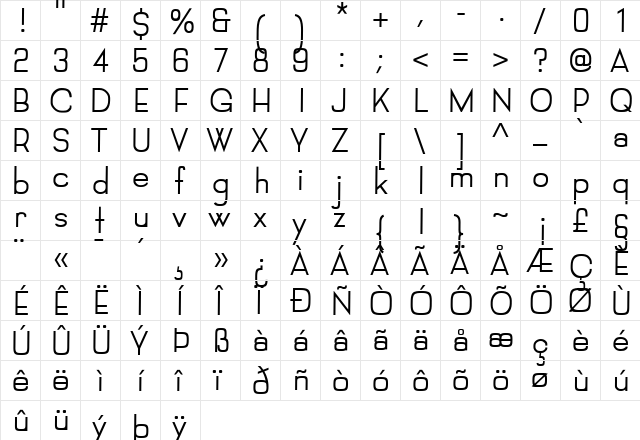
FilipiFont Regular
Design Context for FilipiFont Typeface
FilipiFont offers clean, dependable letterforms without strong stylistic allegiance, making it a practical choice for designers who need flexibility.